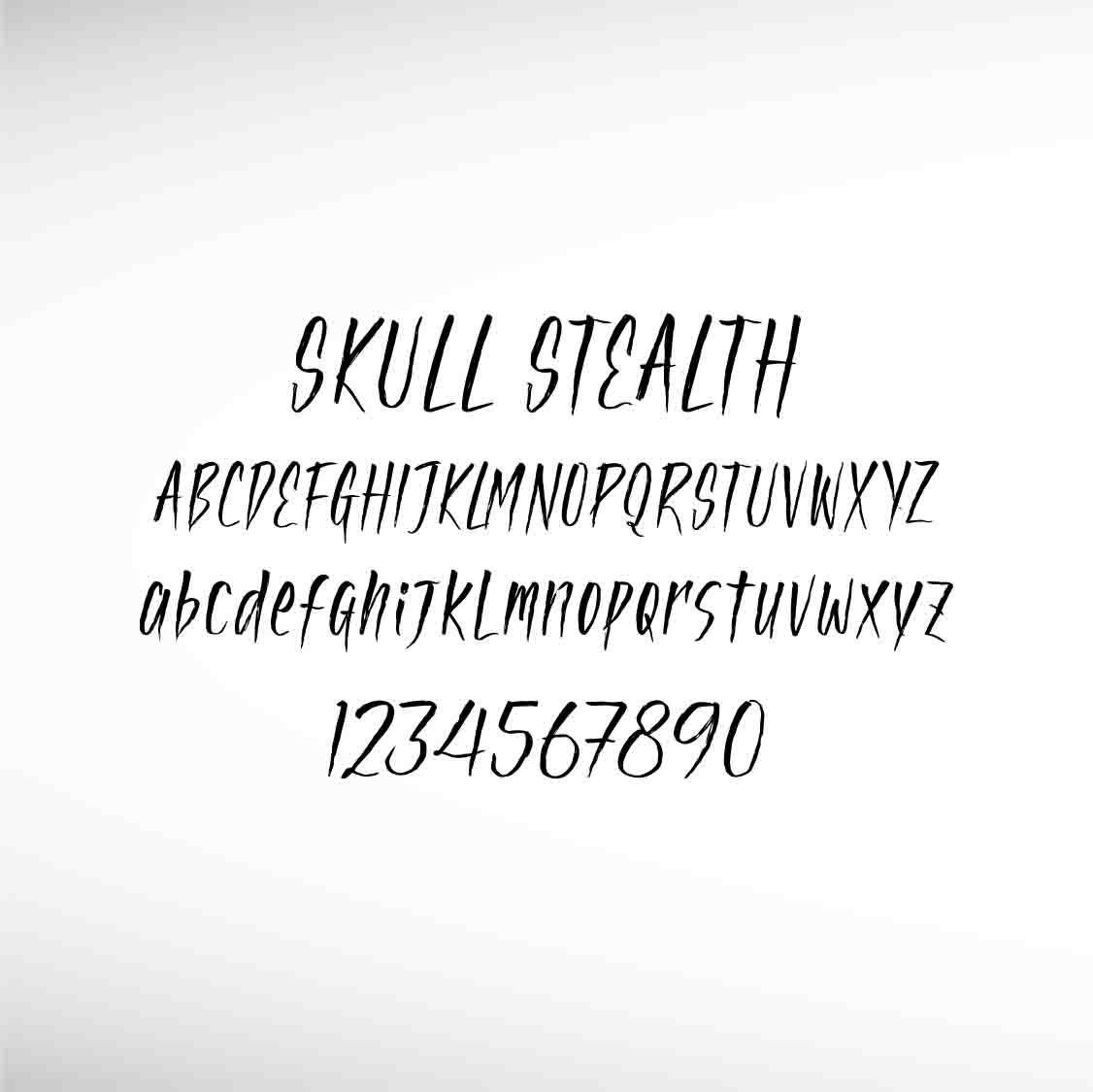
Skull Stealth by Letterena Studios. Skull Stealth is the perfect font for all your fun designs. The font subfamily is Regular.
Designed by Letterena Studios | OpenType Font